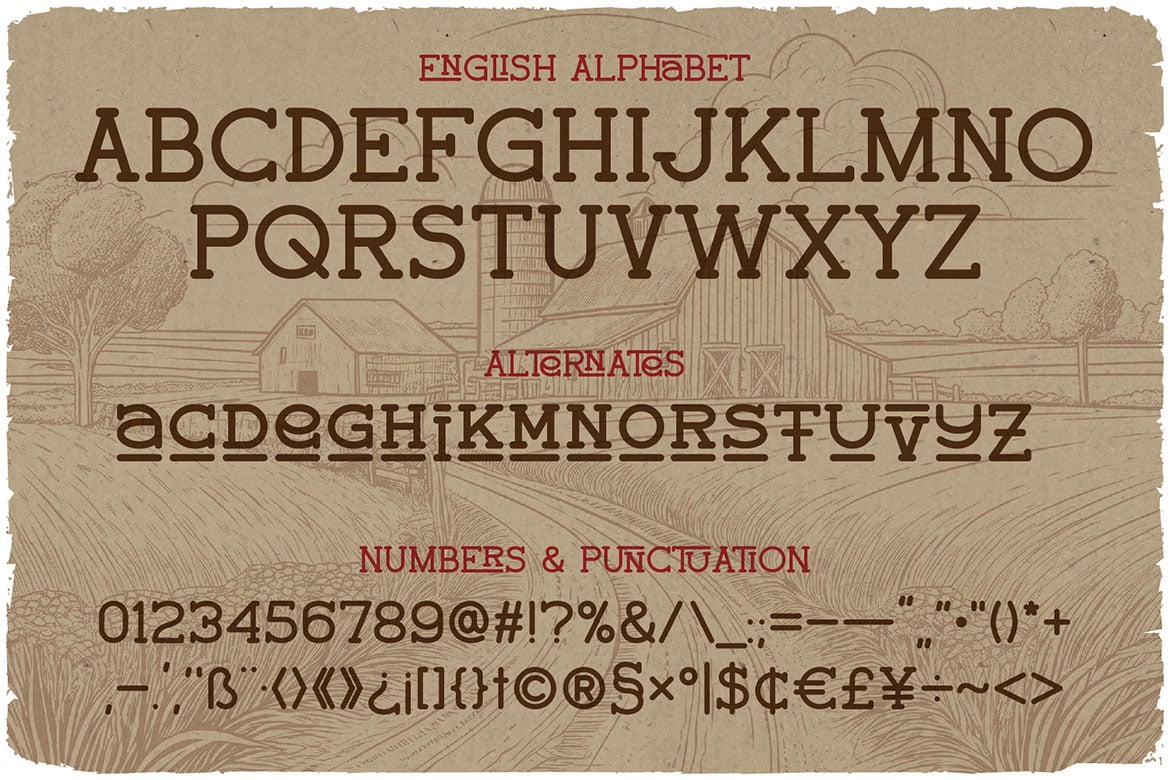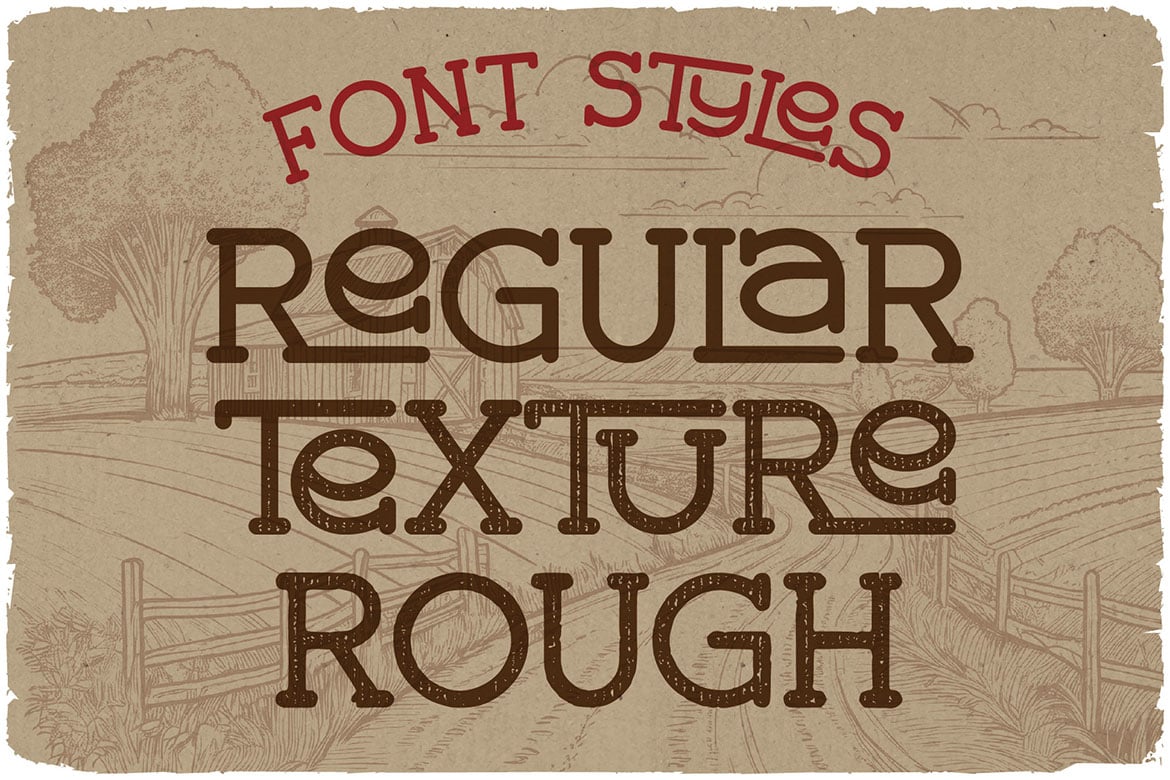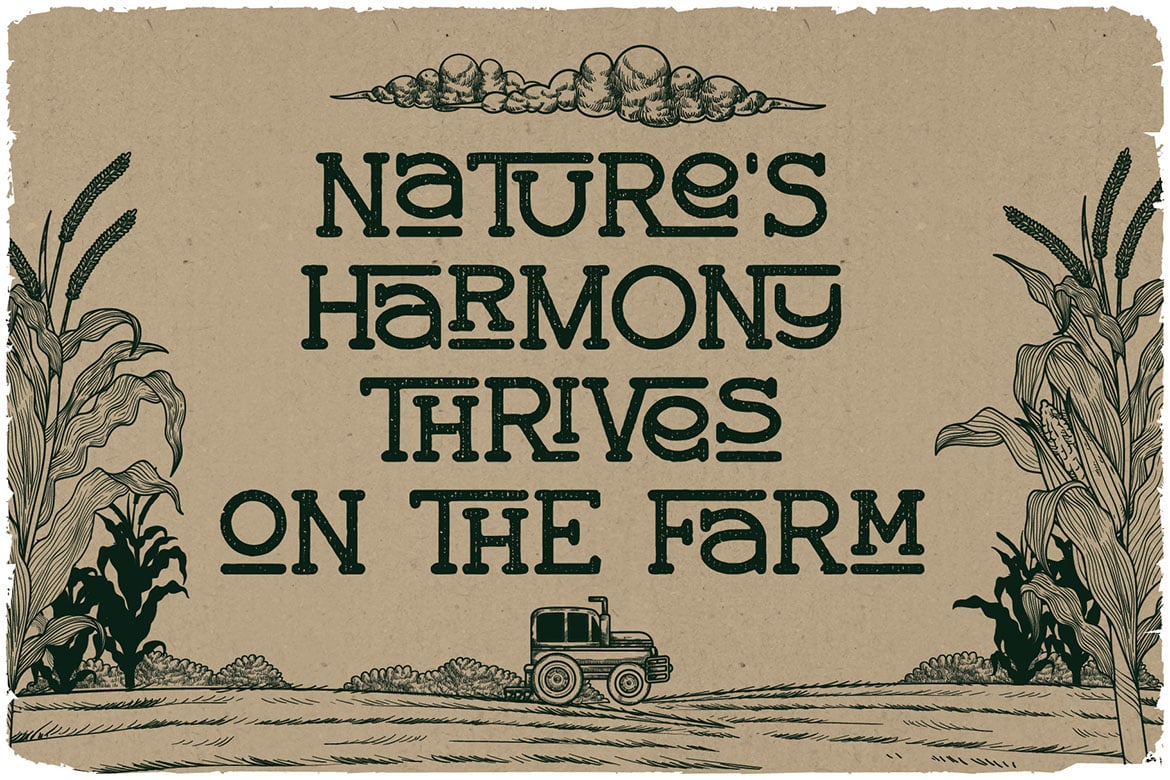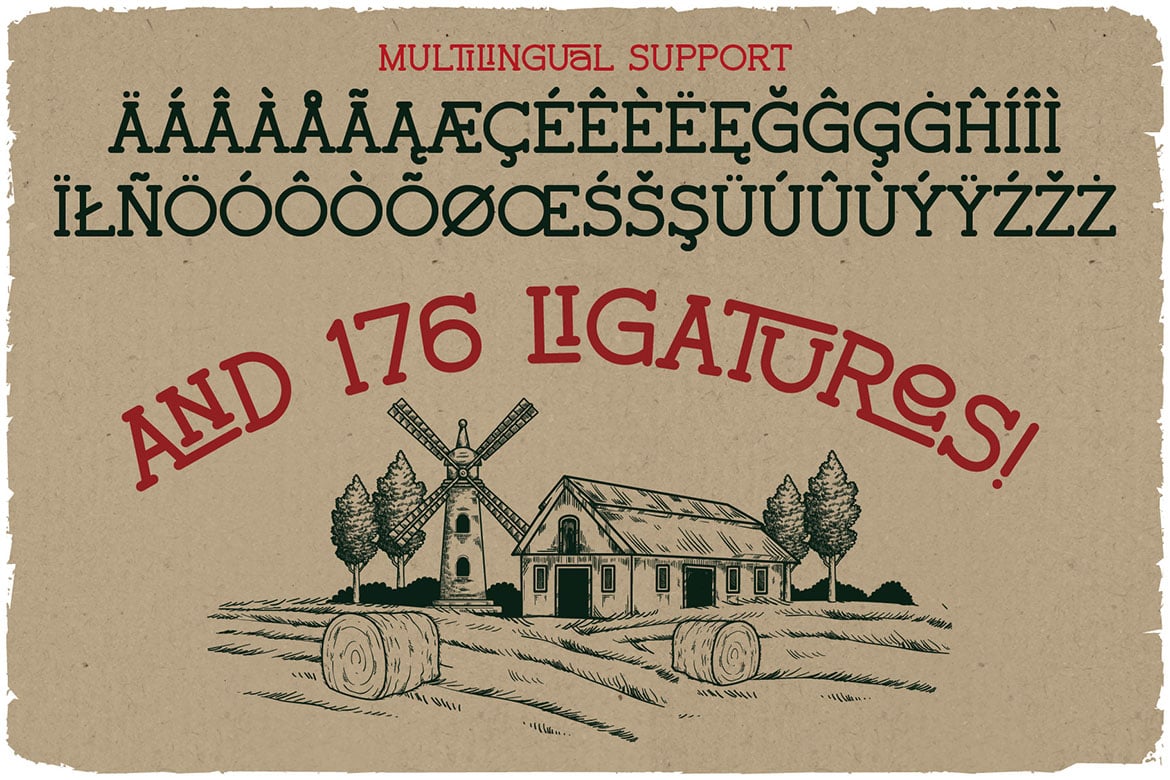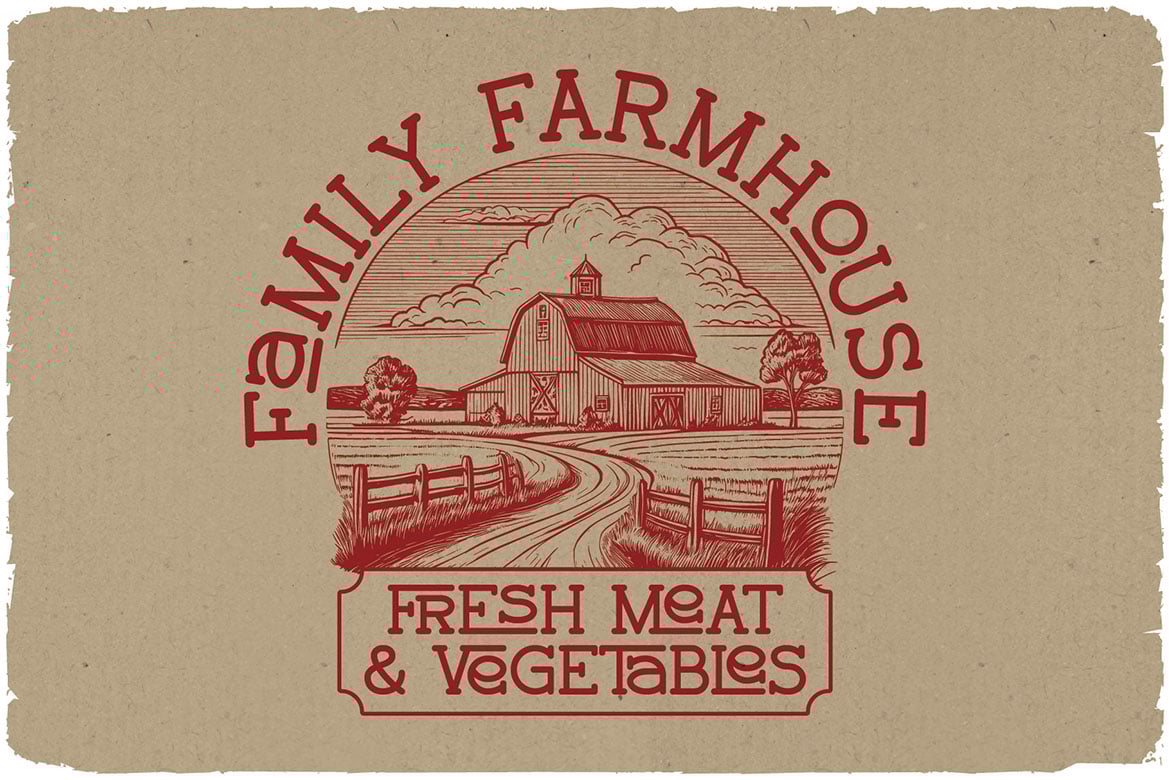
Country Road Vintage Label Font
Unique, monoline, vintage, clean, monogram, western & label slab serif font. Comes with multilingual support & 176 ligatures + 3 font versions – great for your new logo, monogram or branding project.
- 3 font versions – regular, textured & rough
- Multilingual support & 176 ligatures
- Great for retro or vintage style branding projects